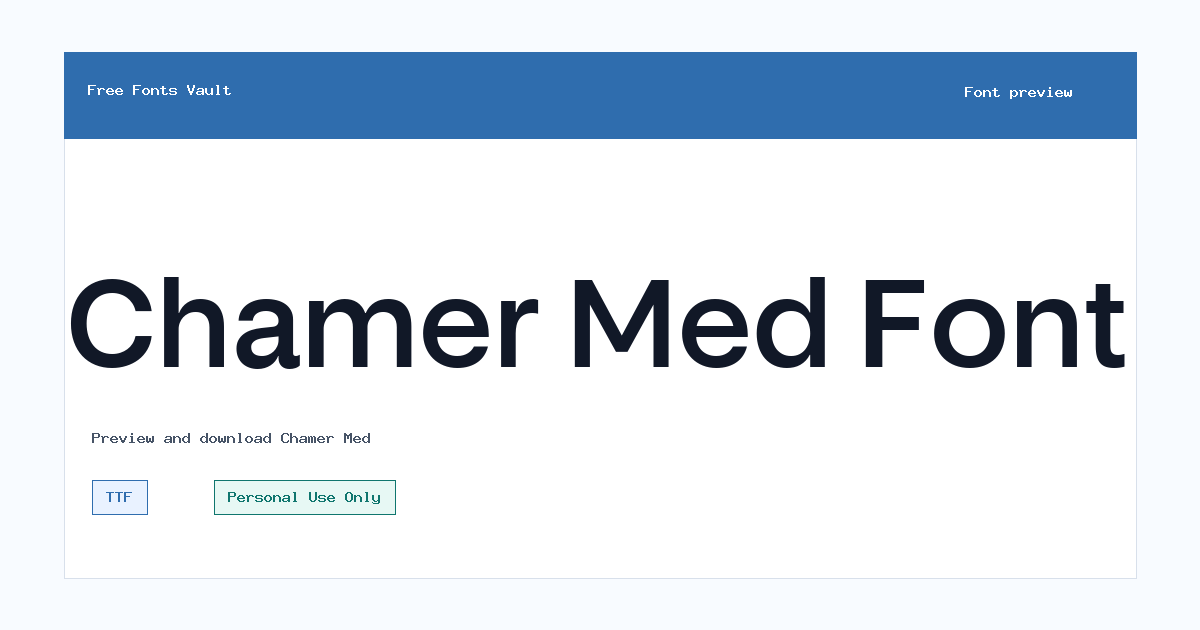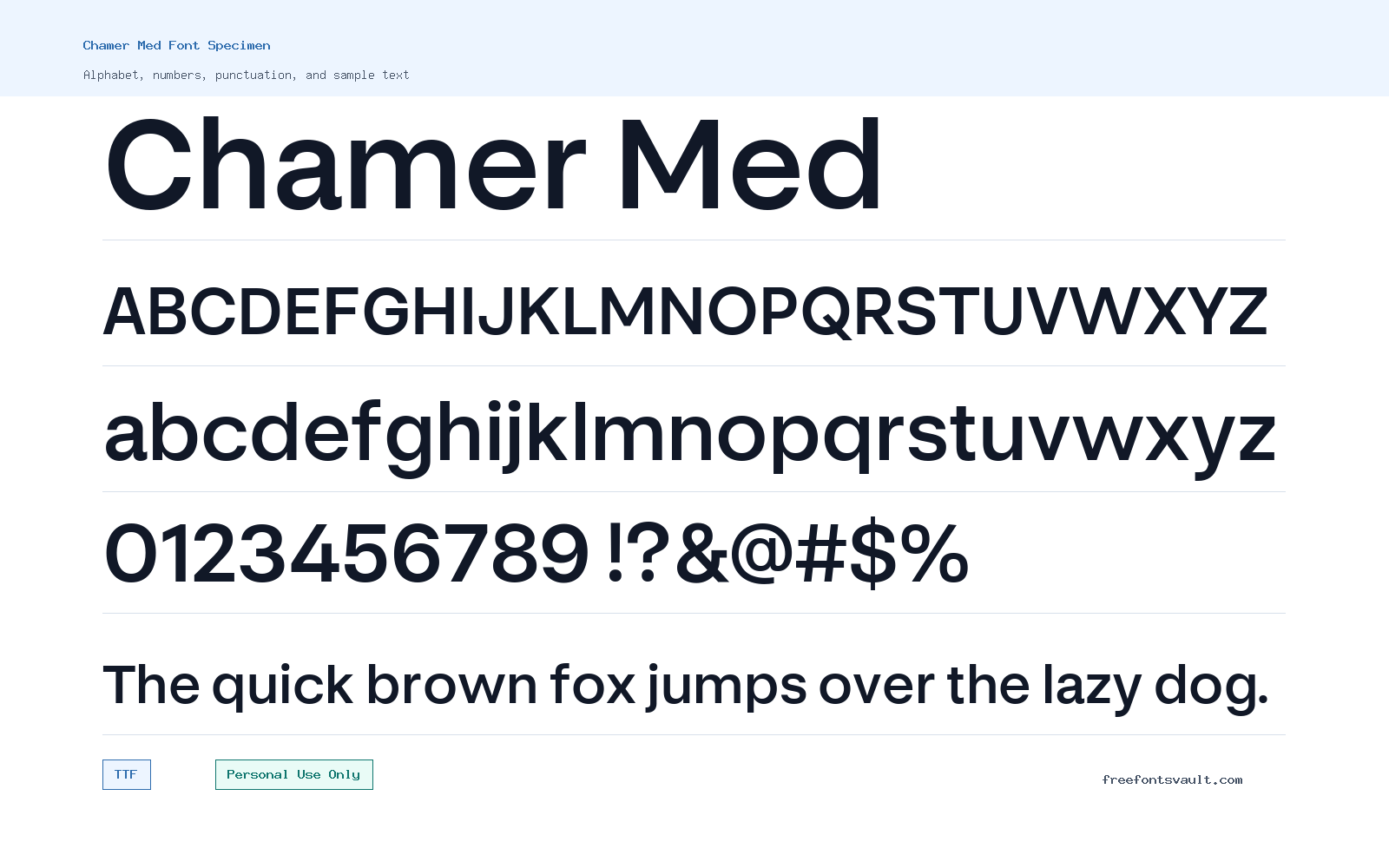
Chamer Med
- Designer Yukita Creative, Abdul Artega
- Foundry Yukita Creative
Chamer Med font.
Chamer Med is a medium-weight sans serif font from Yukita Creative, designed by Yukita Creative and Abdul Artega. It is a practical choice to test when you need clean lettering with more presence than a light style, but less heaviness than a bold display face.
About Chamer Med
For design work, Chamer Med is worth testing in logo mockups, web hero sections, editorial headers, packaging studies, and simple poster layouts. A medium sans serif often works well when you want readable type with enough weight to hold attention on a busy page. Try it first at the exact size you plan to use, because a font that looks calm in a large preview may feel tighter or heavier in smaller text. For longer paragraphs, compare it with a dedicated reading font before committing. If you are building a brand concept, test the font in both uppercase and title case, then check whether the spacing still feels even around narrow letters, wide letters, and common pairs such as “VA,” “To,” and “We.”
- Medium 500 weight for headings, labels, mockups, and short display text
- Normal upright style for clean, direct layouts
- Single listed regular variant, useful when you need a straightforward type choice
- Logo concepts and brand mark drafts for personal projects
- Poster titles, flyers, and event graphics
- Website hero mockups, navigation studies, and landing page headings
- Social media graphics and Pinterest-style visual layouts
- Packaging concepts, labels, and product-name treatments
- Short captions, badges, buttons, and interface mockups
Start by previewing your real words instead of judging the font from a sample phrase. For logo work, test the name in uppercase, lowercase, and title case, then adjust tracking only after checking the default spacing. For posters and web mockups, pair Chamer Med with a quieter text face so the heading has room to stand out. A simple serif or a neutral sans serif for body copy can work well, but avoid pairing it with another strong display font unless you want a deliberately busy layout. If the project may become commercial, settle the license first rather than waiting until the final design stage.
What weight is Chamer Med?
The listed font weight is 500, which is commonly treated as a medium weight. It sits between regular and bold in many type systems.
Is Chamer Med good for body text?
It may work for short labels or brief text, but test it carefully before using it for long reading. A medium-weight single style is often better for headings and short display use than dense paragraphs.
Who designed Chamer Med?
The designer information lists Yukita Creative and Abdul Artega. Yukita Creative is also listed as the foundry.
What should I pair with Chamer Med?
Pair it with a calm body font that does not compete for attention. A simple serif or neutral sans serif can help keep headings clear while making longer text easier to read.